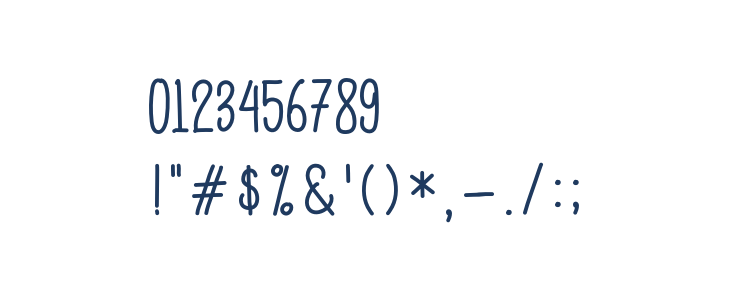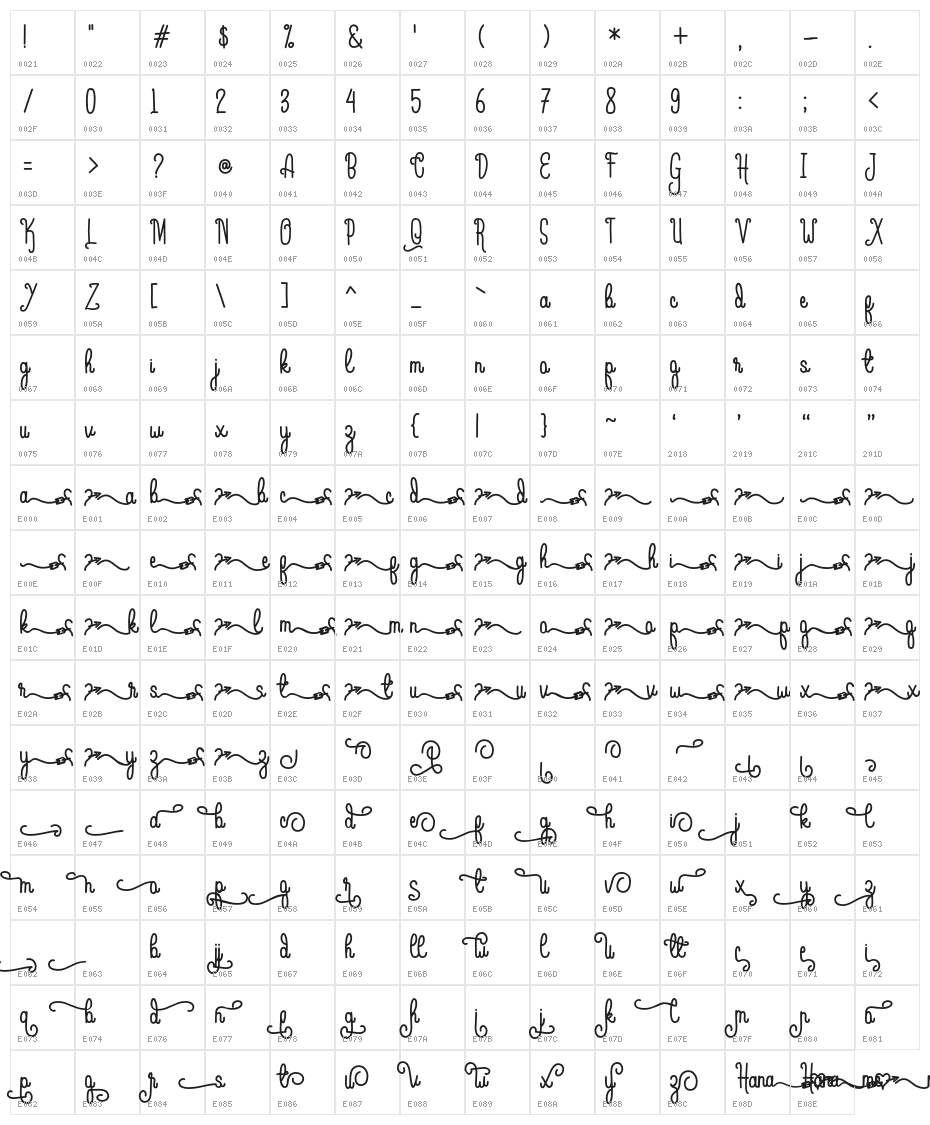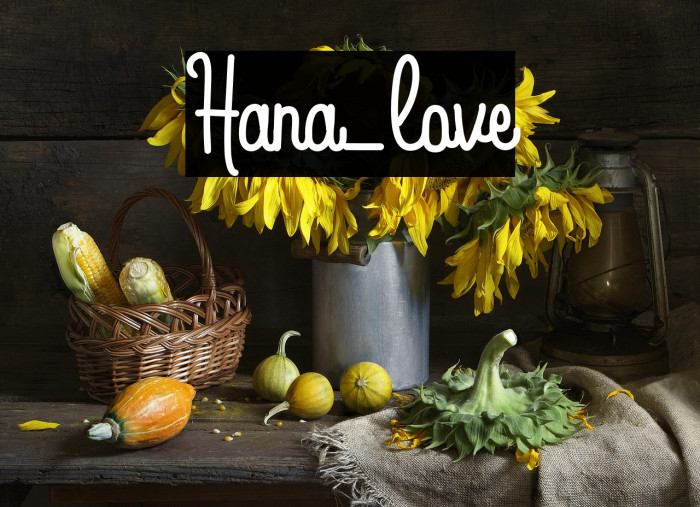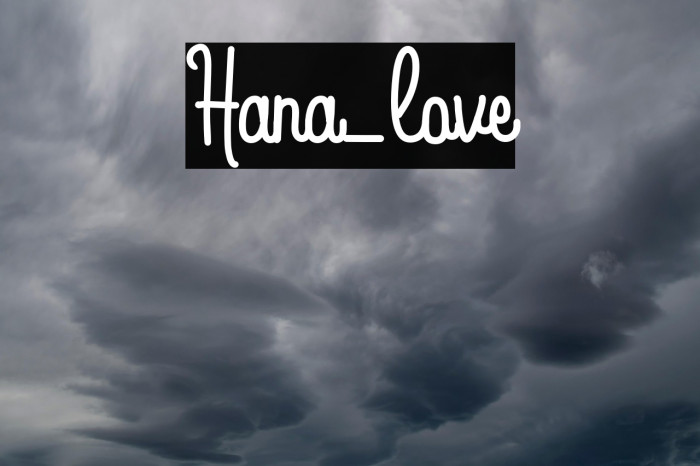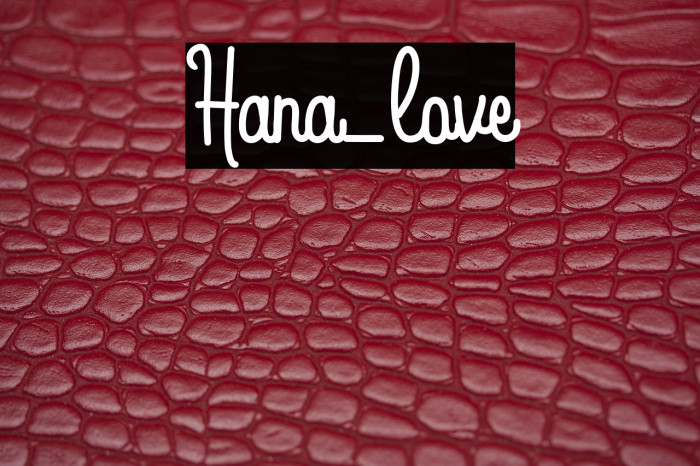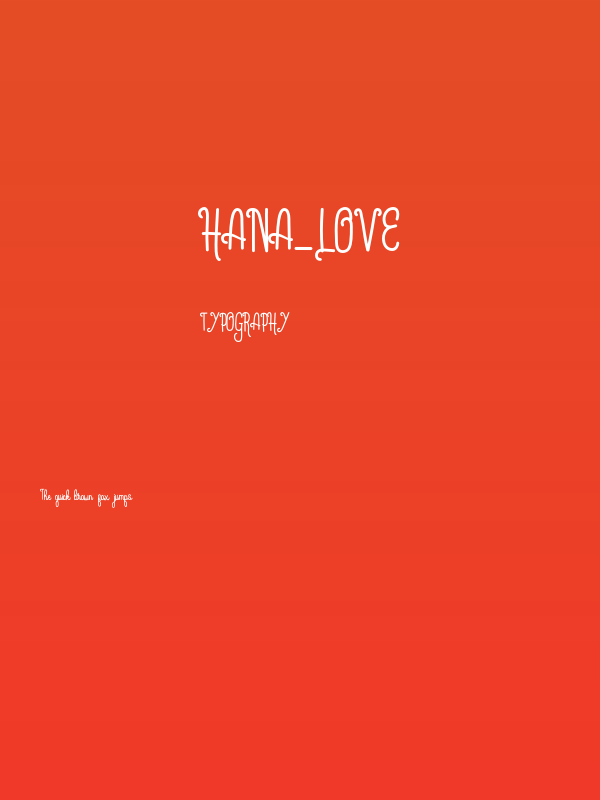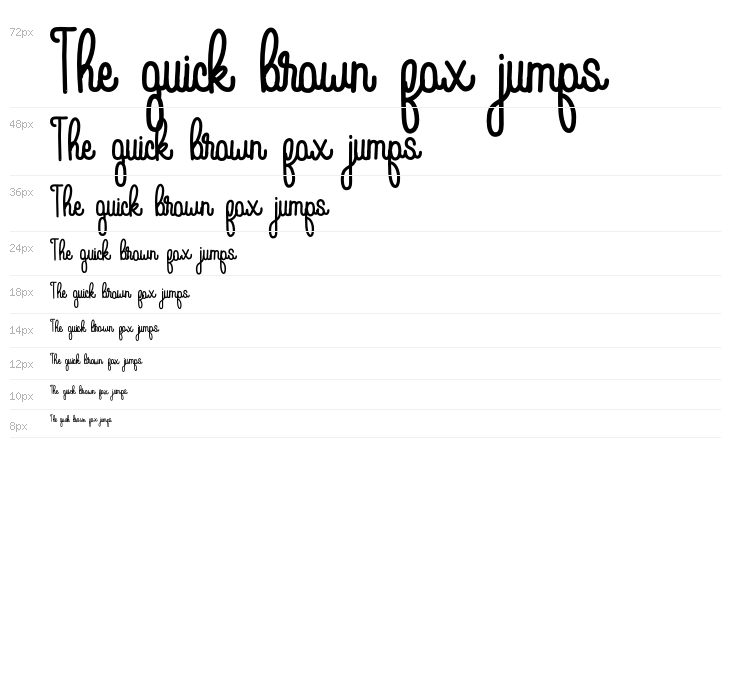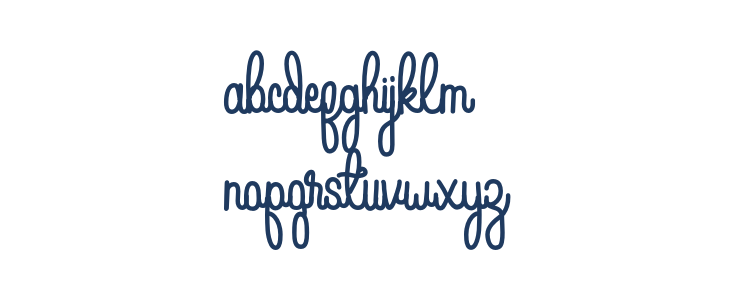
Hana_love Font
Hana_love Description
This font features a playful and whimsical style with a handwritten appearance. The letters are characterized by their looping, cursive-like strokes, giving them a lively and dynamic feel. The uppercase letters are tall and slender, while the lowercase letters maintain a consistent flow with rounded edges. The numbers and special characters follow the same playful aesthetic, making the font suitable for creative and informal designs. The overall look is friendly and approachable, ideal for projects that require a personal touch.
| Proposed Projects | Ideal for greeting cards, invitations, children's books, and playful branding. |